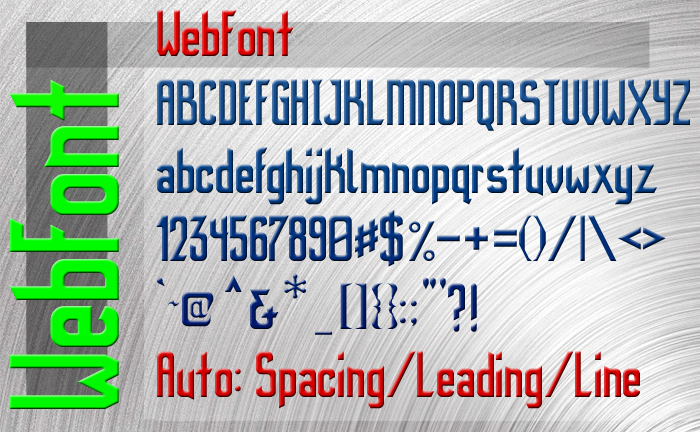
Supports a large latin character set (lots of latin), with extras like the Copyright, Trademark, Tel: symbols, currency signs and an assortment of little Dingbats. I try to use Dingbats for the UI when I design websites, so I included a few without weighing the font down too much, it still loads quickly. Loading a vector based font for UI stuff is a lot easier and quicker than loading graphic files.
I had been working on a different font that I would release as a CC0 web font, but that one had quite a few more characters on it. Unfortunately, it doesn't seem to work with this new improved editor. So, I am going to try to tackle the project all over again. But of course. I want to have a more complete font before I release it. This is just to get ideas and feedback, for now. Currently, just basic latin characters, but I want to include all the normal characters one might need in a webfont, like bullets and arrowheads, currency symbols, important foreign characters so that it offers at least some unified character table support, and a few extras like icons of a shopping cart, credit card symbols, and important UI symbols. Of course, I also have to add the Copyright, Trademark, Registered Trademark, Service Mark and Tele symbols. At the same time, I don't want to include too much, I want the character set to be full featured, but lean overall so that it will load fast on websites.
This, of course, just means there is lots more work to do, but thought I might give people that glimpse and get any feedback I can use.
This looks good, easy to read. I like the 'hint of goth': dark with the occasional beak and slanted ends of verticals. The dingbats are a pleasant addition (can you add a happy smiley? °◡° )
@Aeolien... Sure. I added a happy face in outline and solid, and an outline sad face. I don't know where the 'meh' face is hiding. Also added TM, SM, TEL, and a variety of arrow style bullets and such.
• Clean work, with a suble personal touch. ('$&' might be smaller to match '@'?)